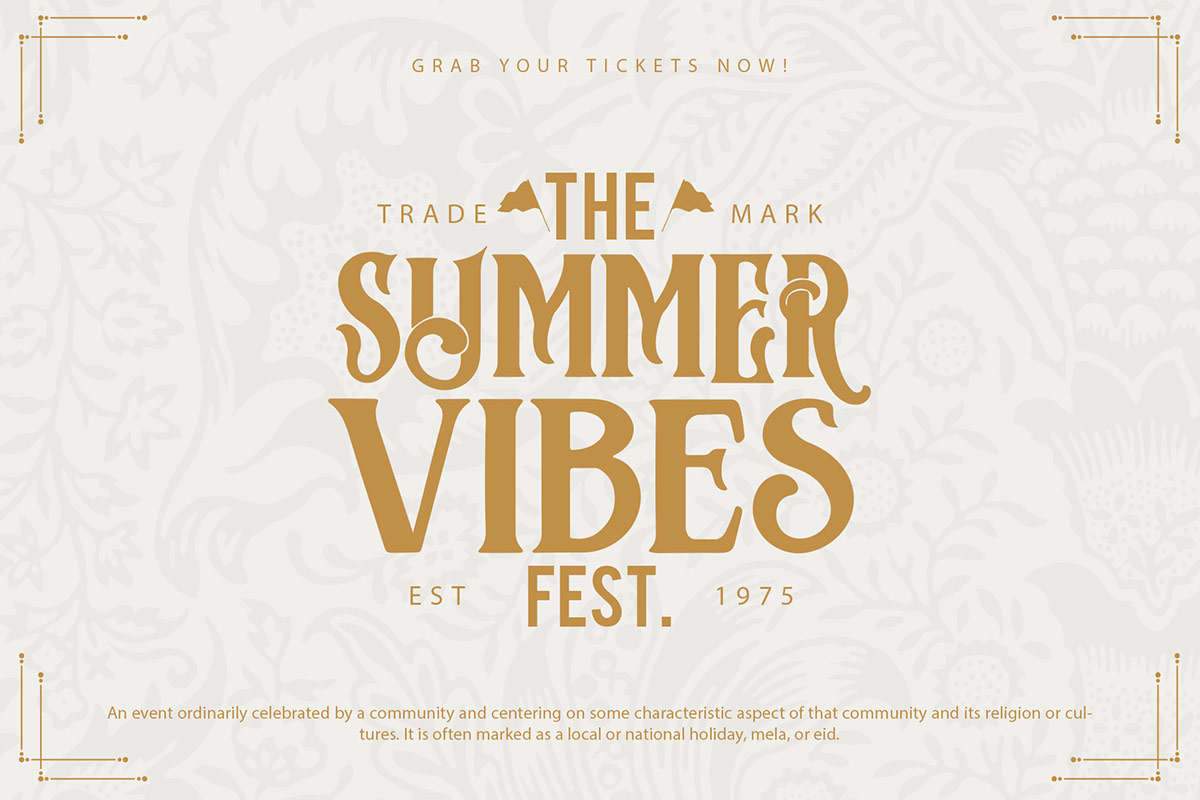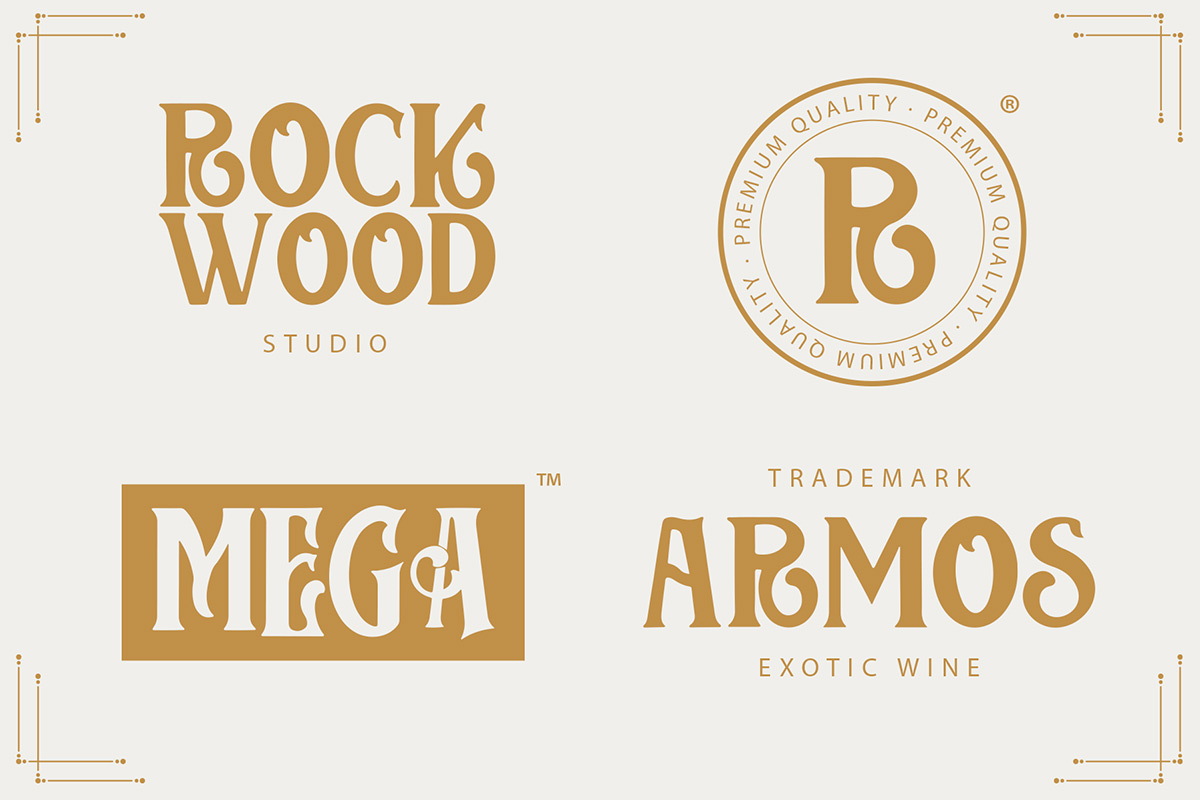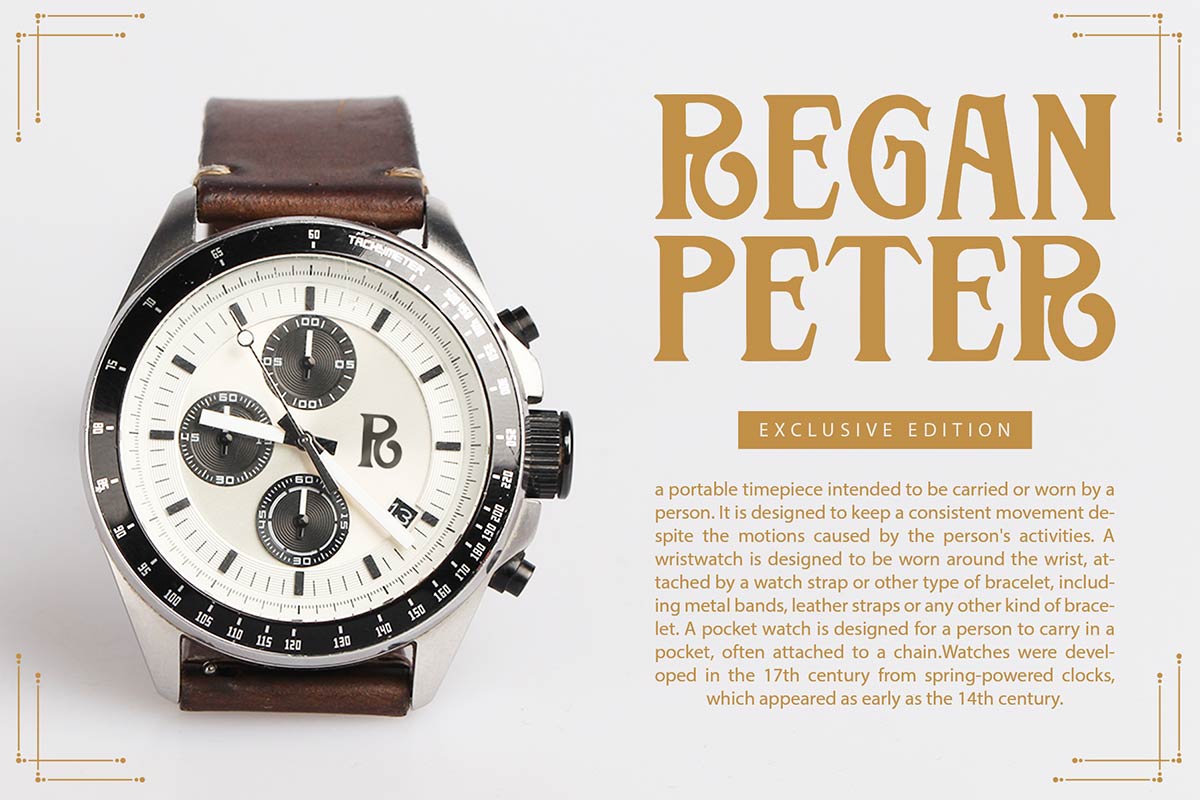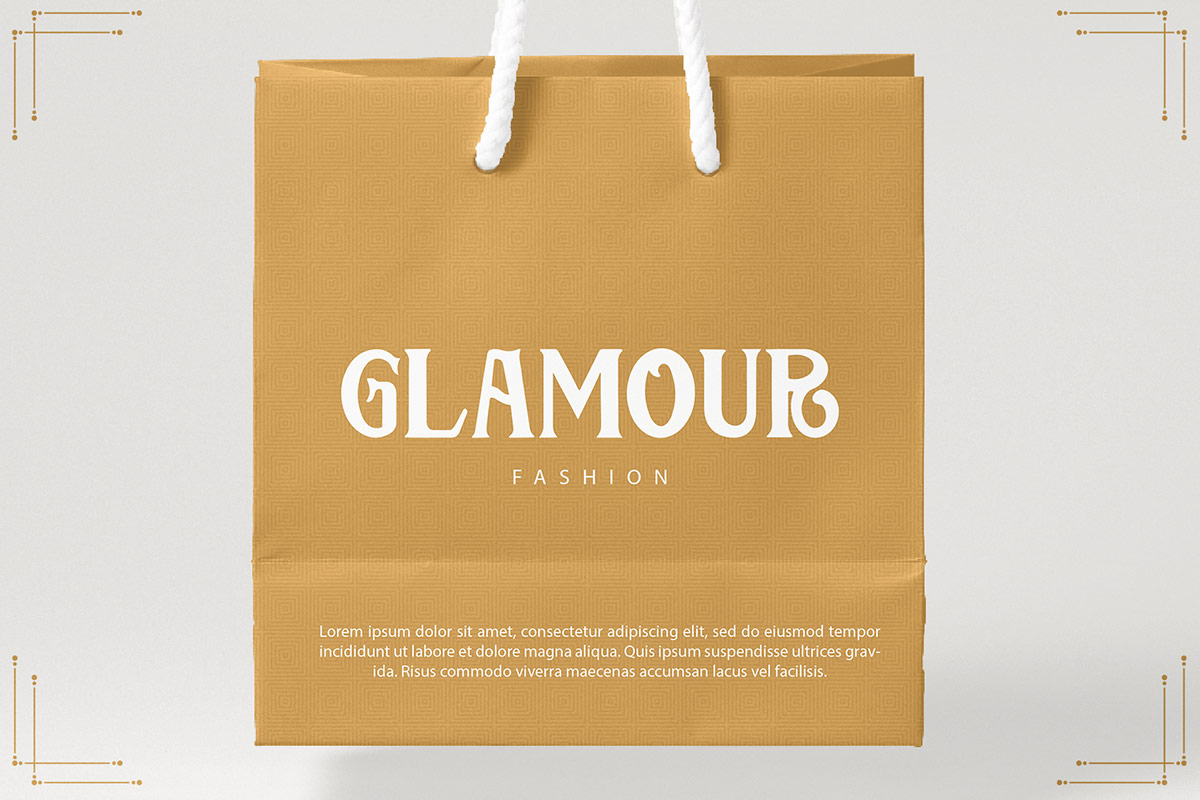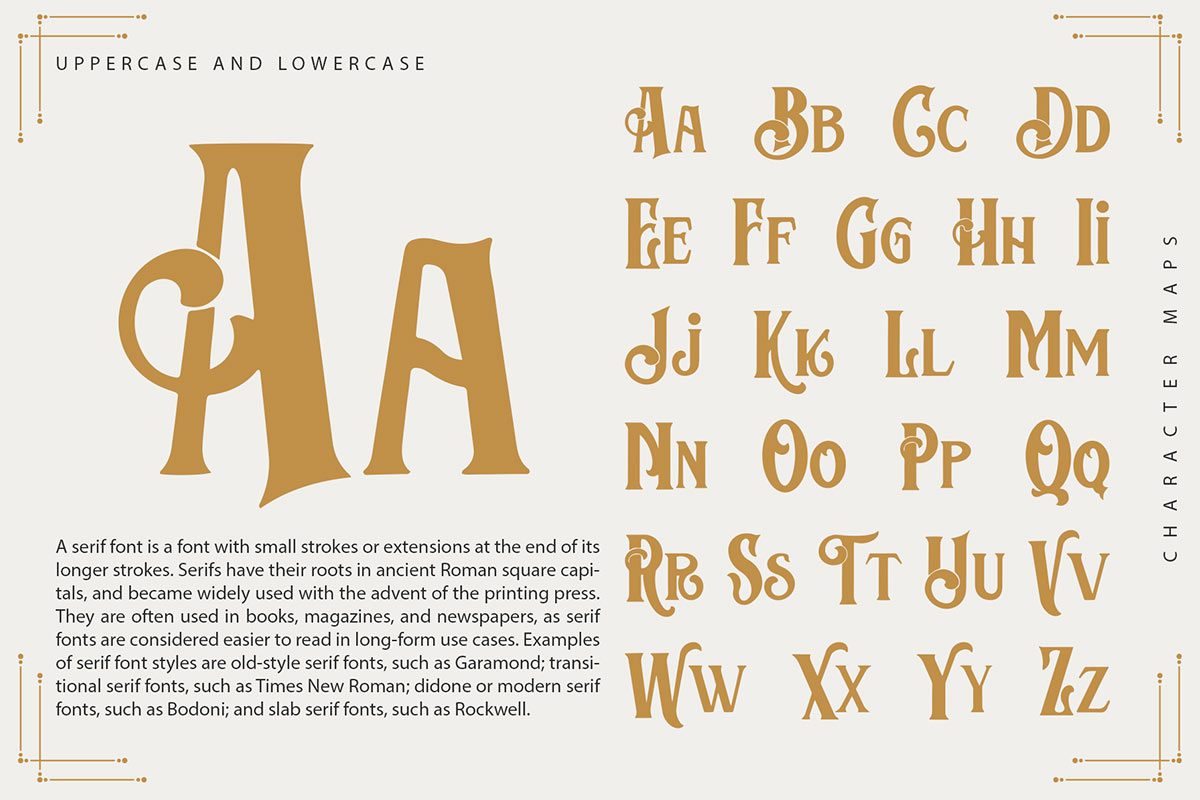
Cosiris Cure Font Many serif fonts are available as options for all of us. Cosiris Cure Modern Fancy Serif Font is one of the fonts with a classic and modern font impression. This impression is what makes this font different from other serif fonts. Cosiris Cure Modern Fancy Serif Font has a simple shape and a thin serif at the end. It has curved lines that extend beyond the boundaries of the letters. This makes the appearance of this font look classic and elegant. The characters described above make Cosiris Cure Modern Fancy Serif Font one of the best fonts that have high compatibility when used as a wedding font. Cosiris Cure Modern Fancy Serif Font can be used on wedding invitation cards, posters, and souvenirs. The font can be used as a digital font and printed in the appropriate font size cause supported by a legible font type. Apart from being a wedding font, the Cosiris Cure Modern Fancy Serif Font is also the best font for branding beauty products. It can be used on packaging as well as a commercial on websites and display posters. This font also has high compatibility when used for social media, both for posting feeds and Instagram stories. With the presence of the Cosiris Cure Modern Fancy Serif Font, it is a concern that it can increase your choices for serif font lovers in choosing the appropriate font for your mix object. Our collection of serif fonts is compatible for use as; Figma fonts, Canva fonts, Freepik Fonts, and Adobe Fonts. They also work as Windows Fonts and Apple Fonts. For your social media needs, you can use and install fonts in our collection of serif fonts to use as Instagram Fonts, Facebook Fonts, and Twitter Fonts.